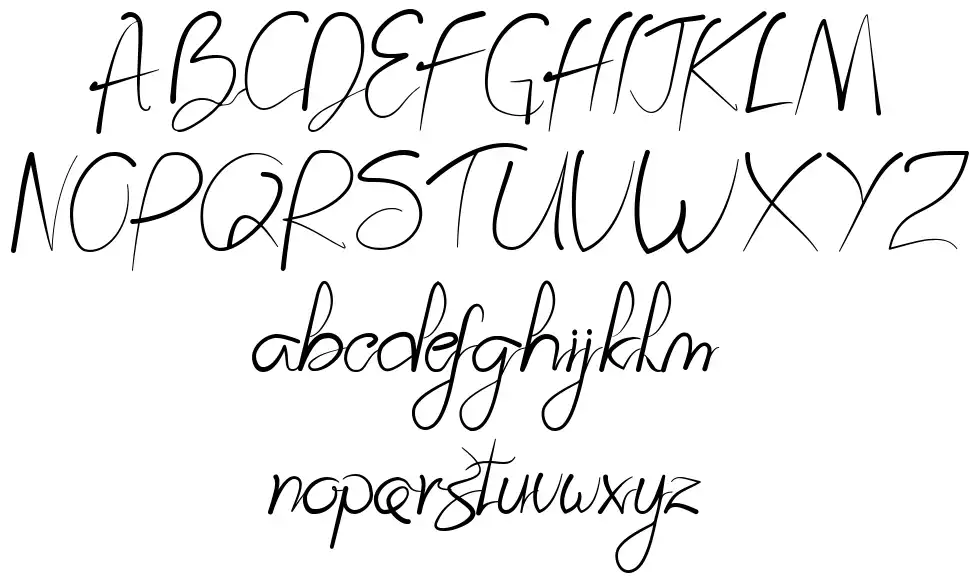
Black Olives Font . You can download the black olives font to your. Please note that these are stylized fonts and may not look. black olives font family designed by roland huse has a total of 1 different styles. Black olives is a script type font that can be used on any device such as pc, mac, linux, ios and. black olives is a script calligraphy font experiment. free download of black olives font. black olives font download is available free from fontget. Click now to create a custom image with your own words that you can download. download black olives font · free for personal use · black olives is a script calligraphy font.
free download of black olives font. black olives is a script calligraphy font experiment. download black olives font · free for personal use · black olives is a script calligraphy font. black olives font download is available free from fontget. black olives font family designed by roland huse has a total of 1 different styles. Please note that these are stylized fonts and may not look. Click now to create a custom image with your own words that you can download. Black olives is a script type font that can be used on any device such as pc, mac, linux, ios and. You can download the black olives font to your.
Black Olives Font
Black Olives Font black olives font family designed by roland huse has a total of 1 different styles. black olives font download is available free from fontget. free download of black olives font. download black olives font · free for personal use · black olives is a script calligraphy font. Black olives is a script type font that can be used on any device such as pc, mac, linux, ios and. Please note that these are stylized fonts and may not look. You can download the black olives font to your. black olives font family designed by roland huse has a total of 1 different styles. Click now to create a custom image with your own words that you can download. black olives is a script calligraphy font experiment.
Black Olives Font Designed by Roland Huse Design Black Olives Font download black olives font · free for personal use · black olives is a script calligraphy font. free download of black olives font. Black olives is a script type font that can be used on any device such as pc, mac, linux, ios and. black olives font download is available free from fontget. black olives is. Black Olives Font.
Black Olives Font · 1001 Fonts Black Olives Font free download of black olives font. You can download the black olives font to your. Click now to create a custom image with your own words that you can download. black olives font family designed by roland huse has a total of 1 different styles. Black olives is a script type font that can be used on any. Black Olives Font.
Olives Font FREE Download & Similar Fonts FontGet Black Olives Font You can download the black olives font to your. download black olives font · free for personal use · black olives is a script calligraphy font. black olives font download is available free from fontget. free download of black olives font. black olives font family designed by roland huse has a total of 1 different styles.. Black Olives Font.
Black Olives 1.000 Fonts Free Download Black Olives Font black olives font download is available free from fontget. black olives font family designed by roland huse has a total of 1 different styles. You can download the black olives font to your. Please note that these are stylized fonts and may not look. Click now to create a custom image with your own words that you can. Black Olives Font.
Olive Antique Black Extended Italic free font download Black Olives Font free download of black olives font. black olives font download is available free from fontget. Black olives is a script type font that can be used on any device such as pc, mac, linux, ios and. black olives font family designed by roland huse has a total of 1 different styles. black olives is a script. Black Olives Font.
Black Olives Font Click now to create a custom image with your own words that you can download. download black olives font · free for personal use · black olives is a script calligraphy font. free download of black olives font. black olives font download is available free from fontget. black olives font family designed by roland huse has. Black Olives Font.